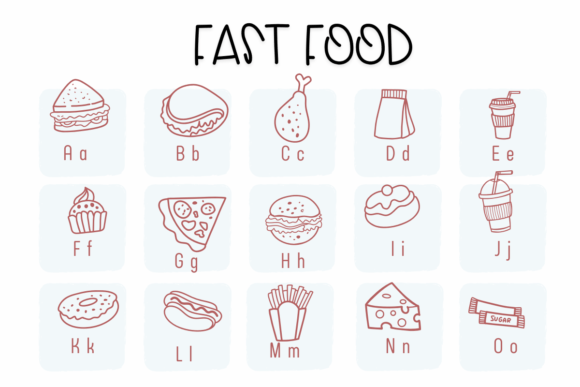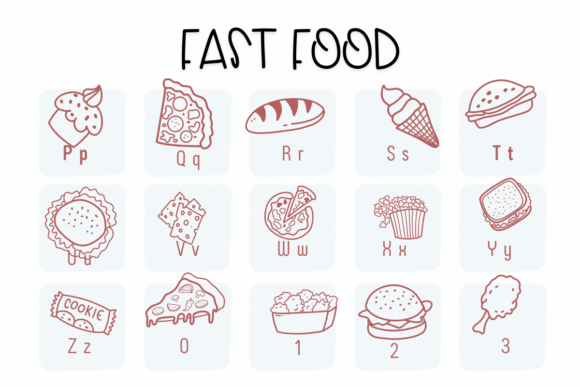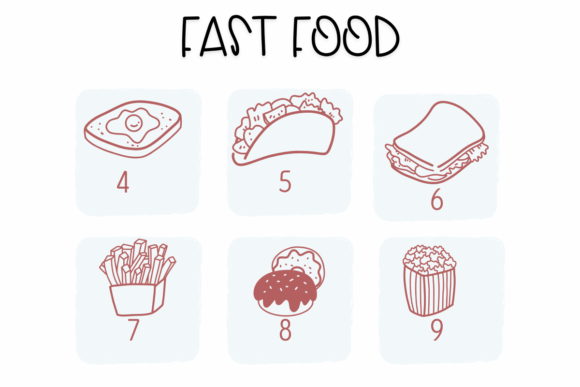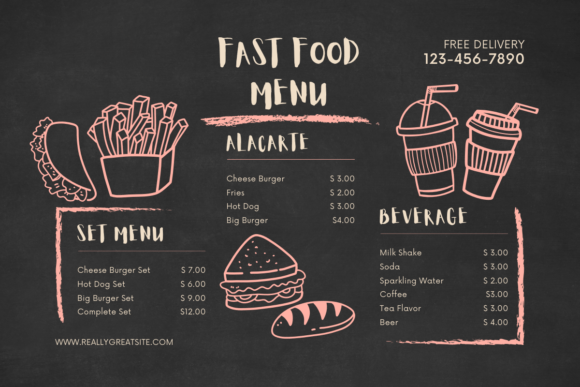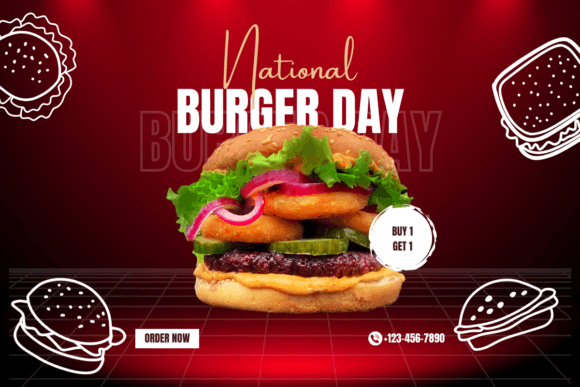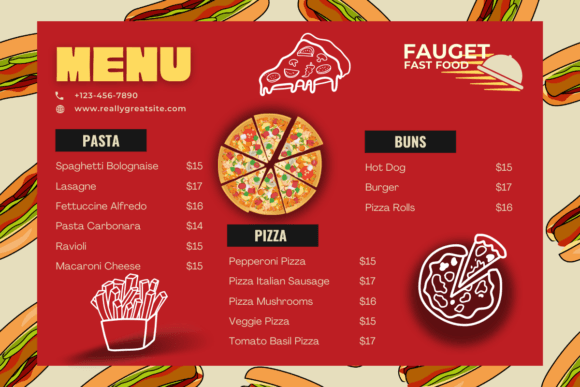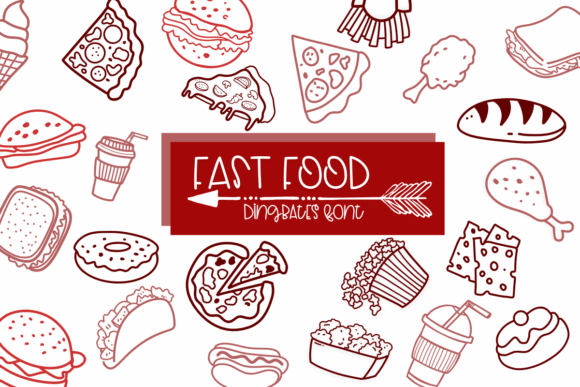
Introducing Fast Food Font: A Deliciously Creative Dingbats Font
Are you a designer, crafter, or DIY enthusiast looking for a unique and mouth-watering font to elevate your creative projects? Look no further than Fast Food Font, a lovely dingbats font with a scrumptious theme that’s sure to satisfy your design cravings.
What is Fast Food Font?
Fast Food Font is a dingbats font that features a delightful collection of food-themed icons, including burgers, fries, pizza, ice cream, and many more. This font is perfect for anyone who wants to add a playful and appetizing touch to their designs. With Fast Food Font, you can create eye-catching and engaging projects that are sure to stand out from the crowd.
Uses for Fast Food Font
Fast Food Font is incredibly versatile and can be used for a wide range of creative projects, including:
- Wedding invitations: Add a touch of whimsy and fun to your wedding stationery with Fast Food Font.
- DIY and crafts: Use Fast Food Font to create custom labels, signs, and decorations for your DIY projects.
- Logos and branding: Create a memorable and catchy logo for your food-related business with Fast Food Font.
- Social media graphics: Use Fast Food Font to create engaging and shareable graphics for your social media channels.
- Party decorations: Create custom banners, signs, and decorations for your next party or event with Fast Food Font.
Why Choose Fast Food Font?
So why choose Fast Food Font over other dingbats fonts? Here are just a few reasons:
- Unique and playful design: Fast Food Font features a unique and playful design that’s sure to add a touch of personality to your projects.
- Easily scalable: Fast Food Font is designed to be easily scalable, making it perfect for use in a variety of projects, from small crafts to large banners.
- Easy to use: Fast Food Font is incredibly easy to use, even for those with limited design experience.
- High-quality graphics: Fast Food Font features high-quality graphics that are sure to look great in any project.
Tips for Using Fast Food Font
Here are a few tips for using Fast Food Font in your creative projects:
- Mix and match icons: Don’t be afraid to mix and match different icons from Fast Food Font to create a unique and eye-catching design.
- Experiment with colors: Fast Food Font looks great in a variety of colors, so don’t be afraid to experiment and find the perfect color scheme for your project.
- Use with other fonts: Fast Food Font pairs well with a variety of other fonts, so feel free to get creative and combine it with your favorite fonts.
Fast Food Font is a deliciously creative dingbats font that’s perfect for designers, crafters, and DIY enthusiasts. With its unique and playful design, easily scalable graphics, and ease of use, Fast Food Font is sure to become a go-to font in your design arsenal. So why wait? Download Fast Food Font today and start creating mouth-watering designs that are sure to satisfy your creative cravings!
Key Features of Fast Food Font
- 100+ food-themed icons
- Easily scalable graphics
- High-quality graphics
- Easy to use
- Perfect for DIY and crafting projects
- Great for logos, branding, and social media graphics
Whether you’re a seasoned designer or a crafting novice, Fast Food Font is the perfect addition to your creative toolkit. So go ahead, get creative, and indulge in the delicious world of Fast Food Font!